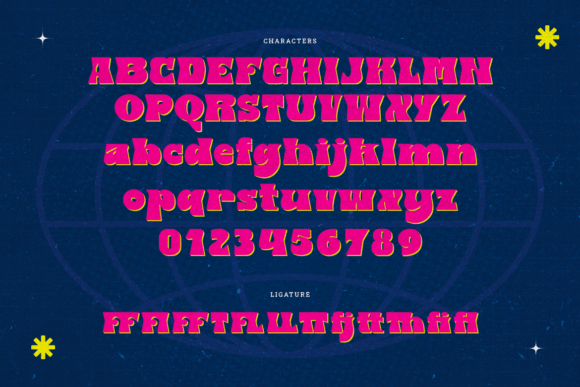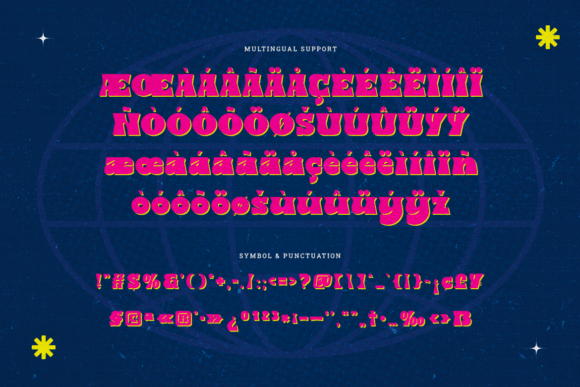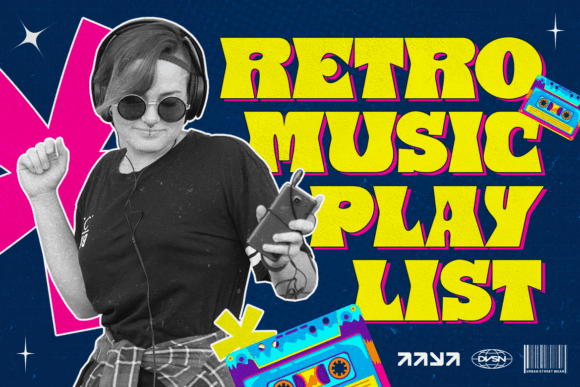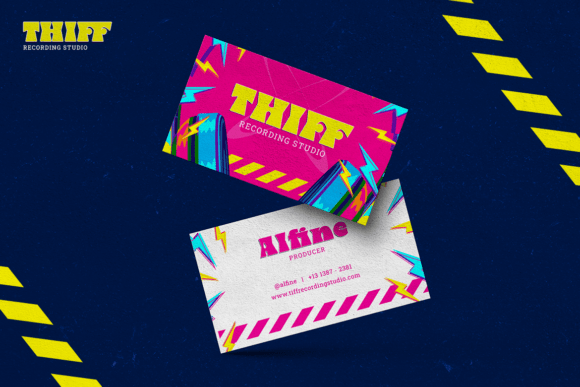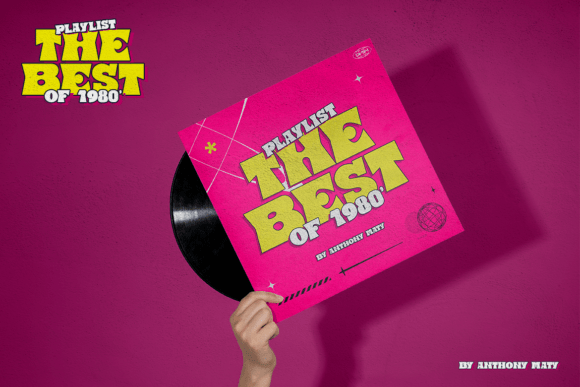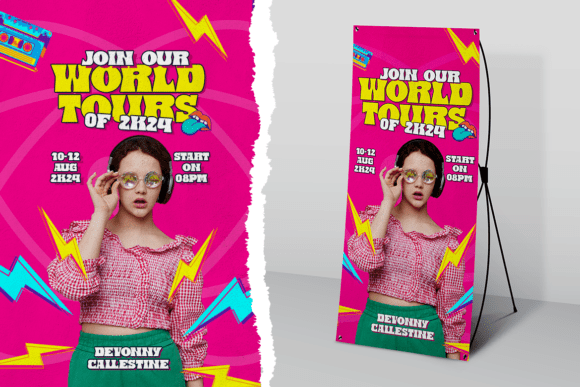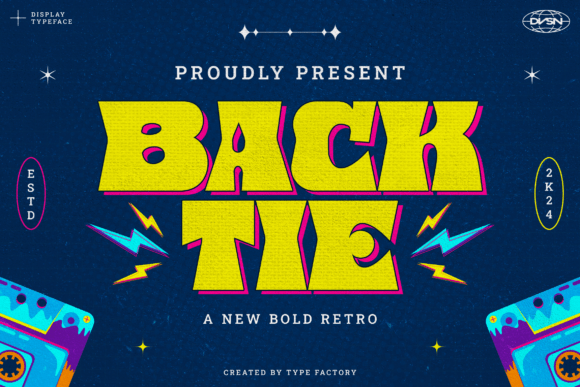
Introducing Backtie Font: The Ultimate Retro-Style Font for Nostalgic Designs
Are you looking for a font that can transport your designs back to the iconic 70s and 80s? Look no further than Backtie, a bold and retro-style font that’s steeped in vintage charm. With its cheerful chunkiness and distinctive, warm curvature, Backtie is the perfect choice for designers and crafters who want to add a touch of nostalgia to their projects.
The Characteristics of Backtie Font
Backtie font is characterized by its bold and sturdy design, making it perfect for creating eye-catching posters, brand identity, packaging, and headlines. Its cheerful chunkiness and warm curvature evoke a sense of nostalgia and playfulness, reminiscent of the graphics and typography of the 70s and 80s. Whether you’re designing a vintage-inspired poster or a modern brand identity, Backtie’s unique blend of old-world charisma and contemporary flair is sure to make your design stand out.
The Benefits of Using Backtie Font
So, why choose Backtie font for your design projects? Here are just a few benefits of using this incredible font:
- Bold Personality: Backtie font has a bold and confident presence that makes it perfect for creating eye-catching designs. Whether you’re designing a poster, a brand identity, or packaging, Backtie is sure to make a statement.
- Vintage Charm: Backtie’s retro-style design is steeped in vintage charm, making it perfect for designers and crafters who want to create designs that evoke a sense of nostalgia.
- Versatility: Backtie font is incredibly versatile, making it perfect for a wide range of design projects, from posters and brand identity to packaging and headlines.
- Contemporary Flair: Despite its vintage-inspired design, Backtie font has a contemporary flair that makes it perfect for modern design projects.
Backtie font is perfect for designers and crafters who want to add a touch of nostalgia to their projects. Whether you’re designing a vintage-inspired poster, a modern brand identity, or a craft project, Backtie’s bold and retro-style design is sure to make your project stand out.
Designers will love Backtie’s:
How to Use Backtie Font in Your Designs
Using Backtie font in your designs is easy. Here are a few tips to get you started:
- Pair it with a sans-serif font: Pairing Backtie font with a sans-serif font can create a beautiful contrast that adds depth and interest to your design.
- Use it for headlines: Backtie font is perfect for headlines, where its bold and attention-grabbing design can really make an impact.
- Experiment with colors: Backtie font looks great in a range of colors, from bright and bold to muted and pastel.